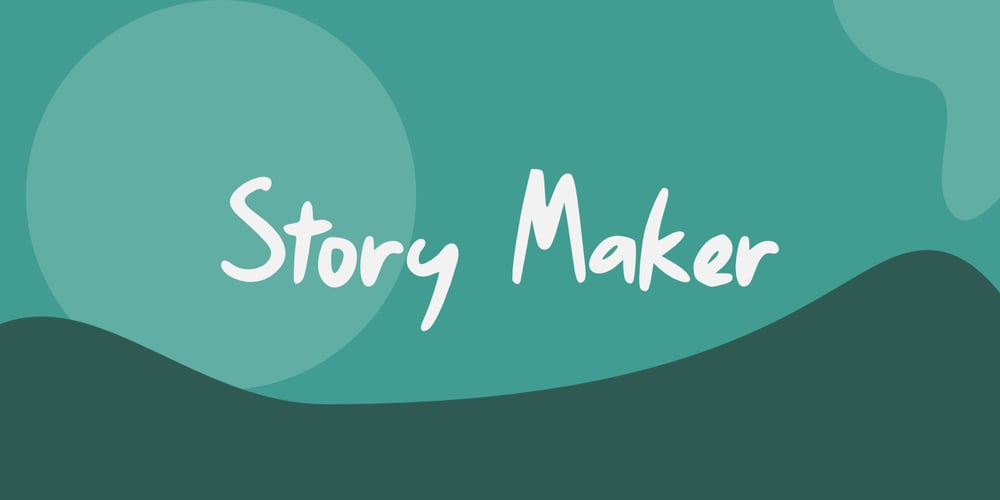
Story Maker GT
Story Maker GT Font Family was designed by Gumilang Anggara Ruslan and published by Gartype Studio. Story Maker GT contains 3 styles and family package options. Inspired by slow and slanted handwriting style, we present to you Story Maker, a handwritten font with slow and slanted characters that was comes with alternates and multilingual glyphs to help people around world with that unique accent with this font.Story Maker is very suitable like as text, cover book, poem, handwritten style, and more.That way easily change the glyphs to make more unique glyphs.